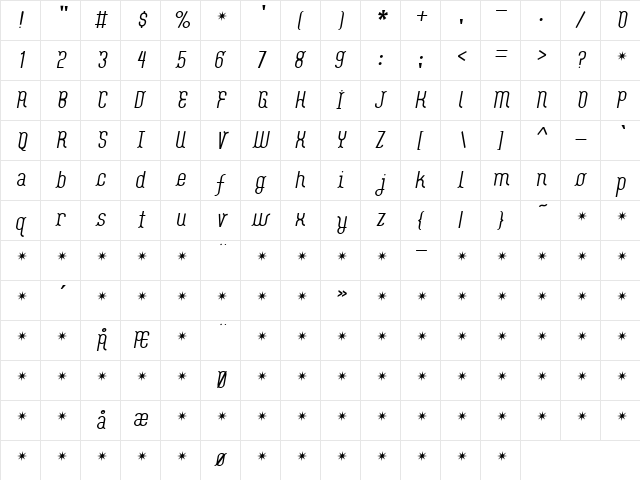
FlashBoy Regular
FlashBoy takes a measured approach to typography — its balanced proportions and neutral character make it a reliable workhorse for both digital and print work.